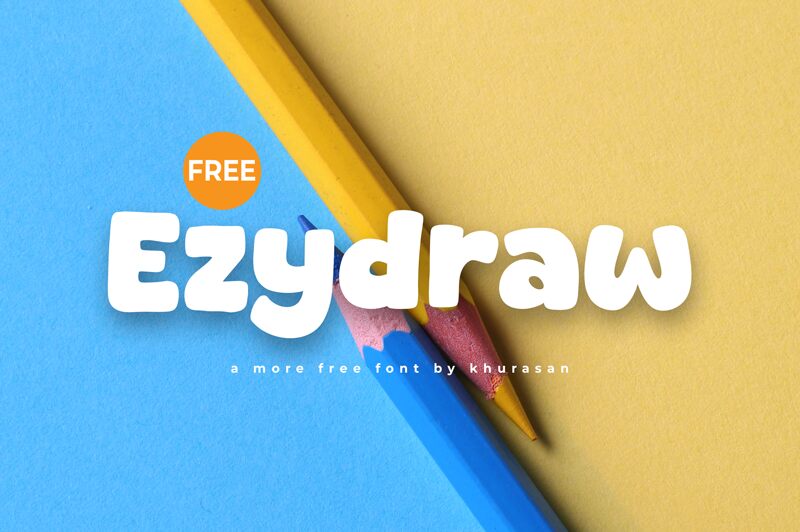
Ezydraw
Ezydraw font by Khurasan is a cartoon display font that gives different illustrative projects a spark of life. Ezydraw is chunky and smooth with bold rounded letters and an expanded width that covers larger areas. Its happy character is easily highlighted with colorful typography designs, bringing out the friendly vibes in every word.
This free retro-inspired font can be useful for book covers, newsletters, dashboards, brochures, posters, tickets and vouchers. Other uses can include playful branding projects as well as packaging designs on juice boxes or cereal packages meant for children. And to take things to the next level of creativity, add some bright colors!